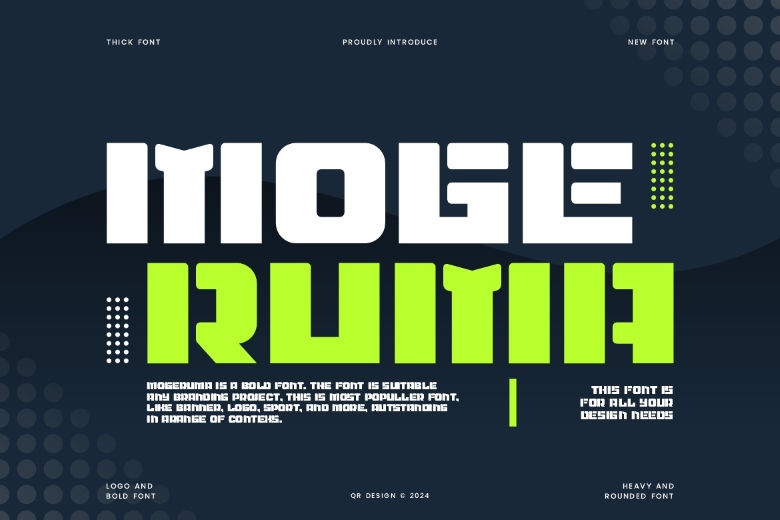
Mogeruma Font
Mogeruma is a sans serif font that reflects the feel of having much confidence in what one is doing. Regardless of what the content of your design is, this font will be useful in your collection of fonts as it can make any concept refined.
Mogeruma Display Font